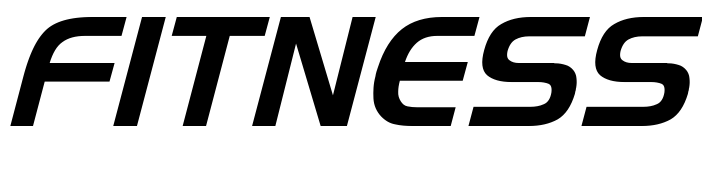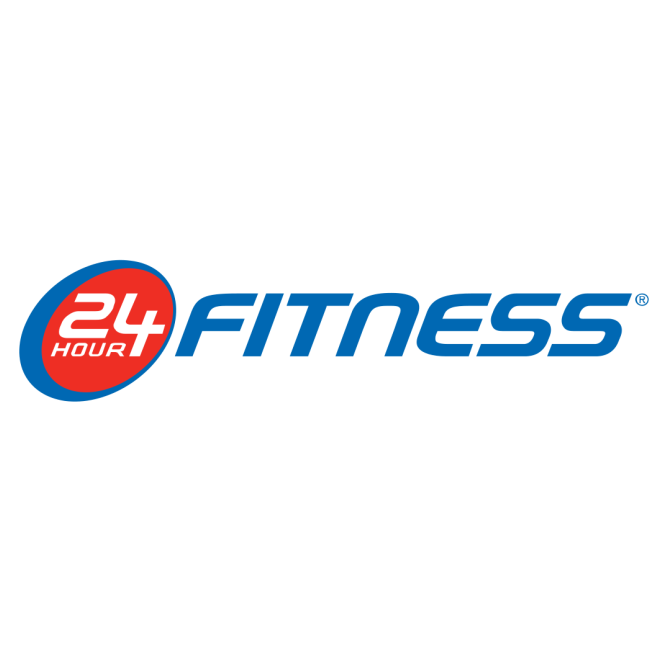
24 Hour Fitness Logo Font
Fonts in Use24 Hour Fitness, is a chain of fitness centers with over 400 locations in the United States, offering a wide range of amenities including cardio and strength equipment, group exercise classes, personal training, and more.
Handel Gothic, a sans-serif typeface designed by Donald J. Handel in the mid-1960s, is used for the "Fitness" portion of the 24 Hour Fitness logo. You can learn more about this futuristic font here.